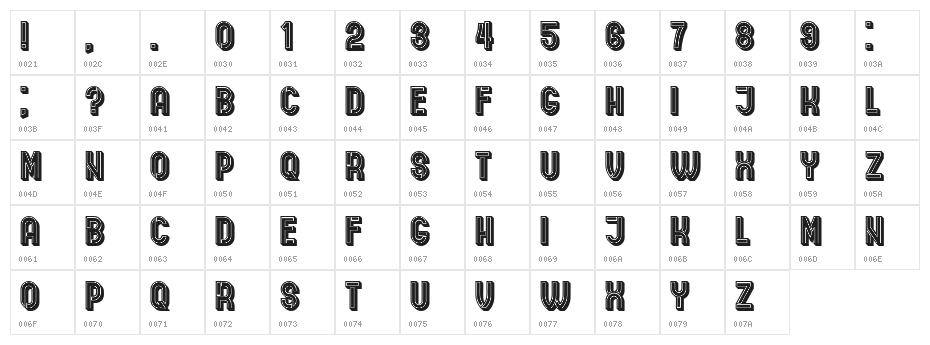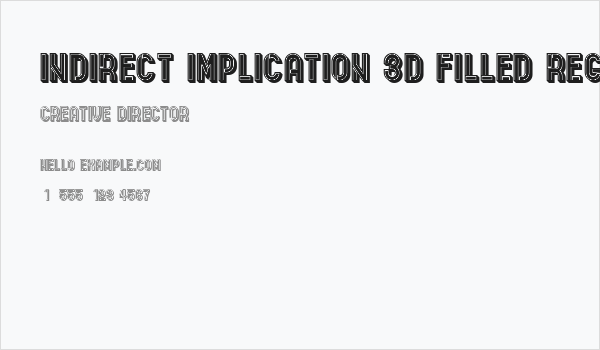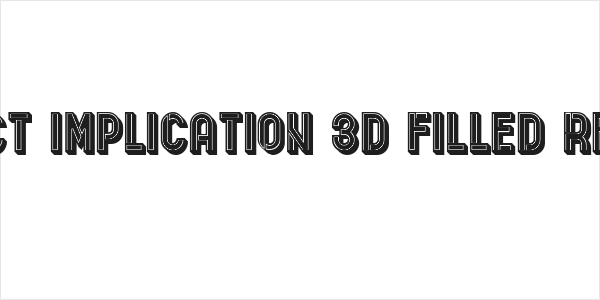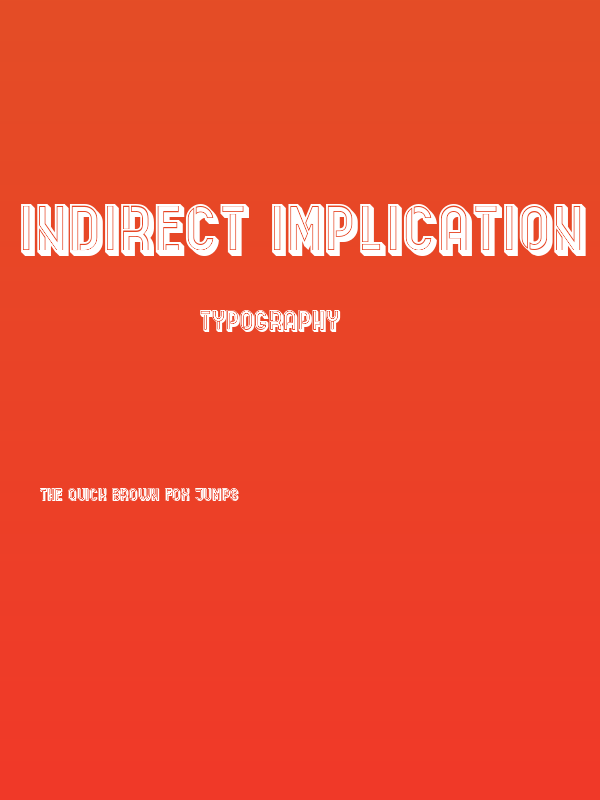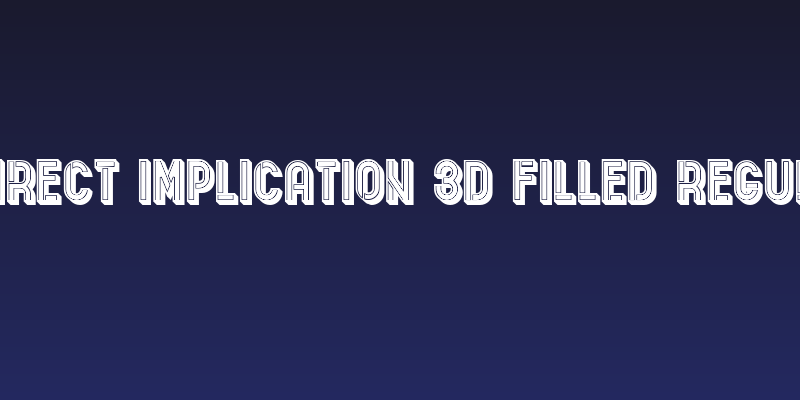
Indirect Implication 3D Filled Regular Font
Indirect Implication 3D Filled Regular Description
This font features a bold, three-dimensional design with a filled appearance, giving it a striking and impactful look. The characters are uppercase, with a consistent thickness and a shadow effect that enhances the 3D illusion. The style is geometric and modern, with clean lines and a structured form. The numbers and special characters maintain the same bold and filled characteristics, ensuring uniformity across all glyphs. This font is ideal for creating eye-catching headlines or titles that demand attention.